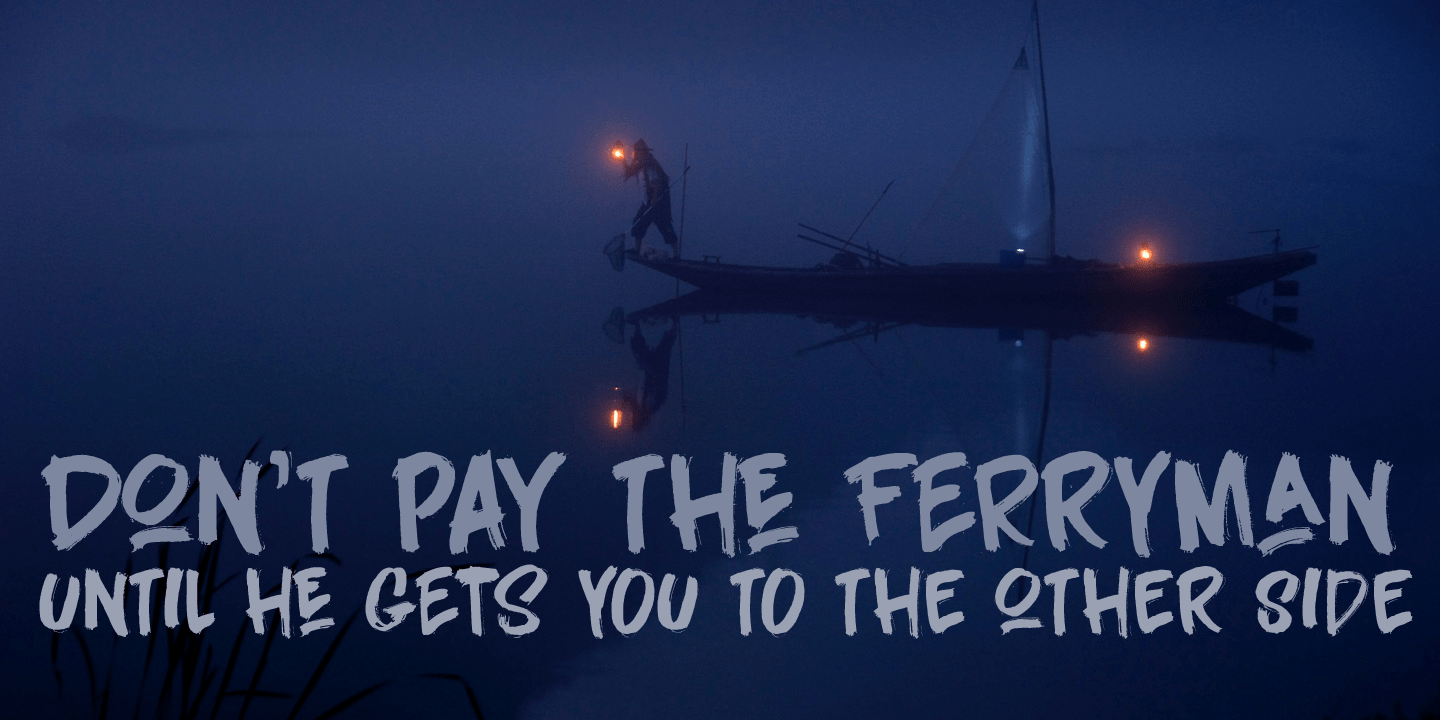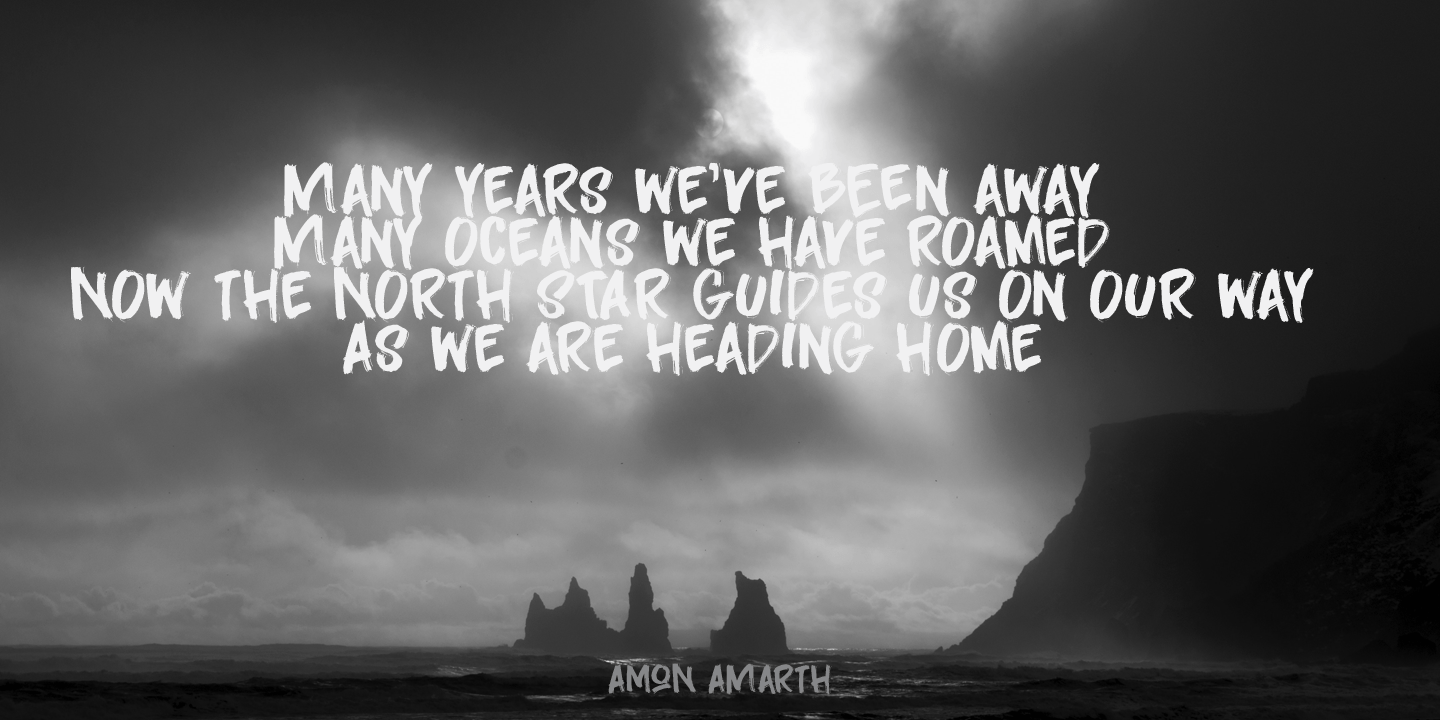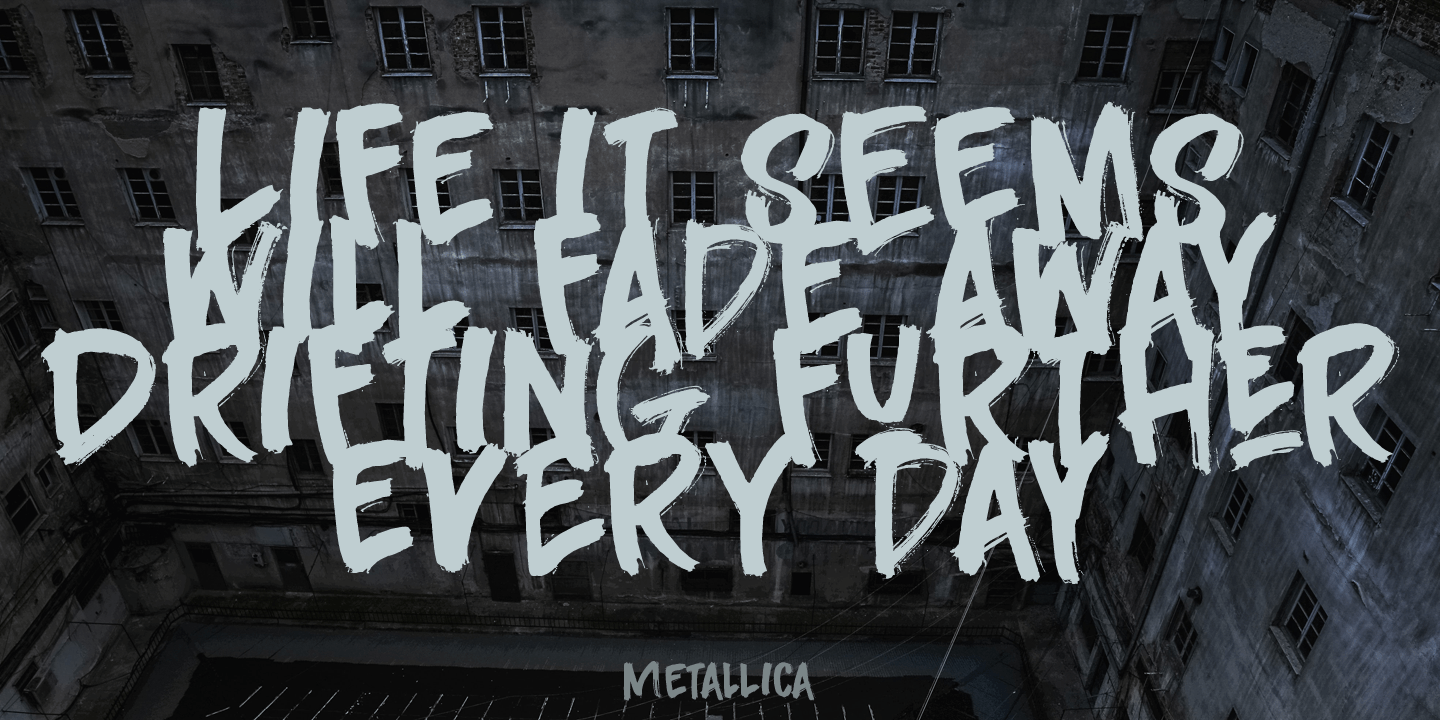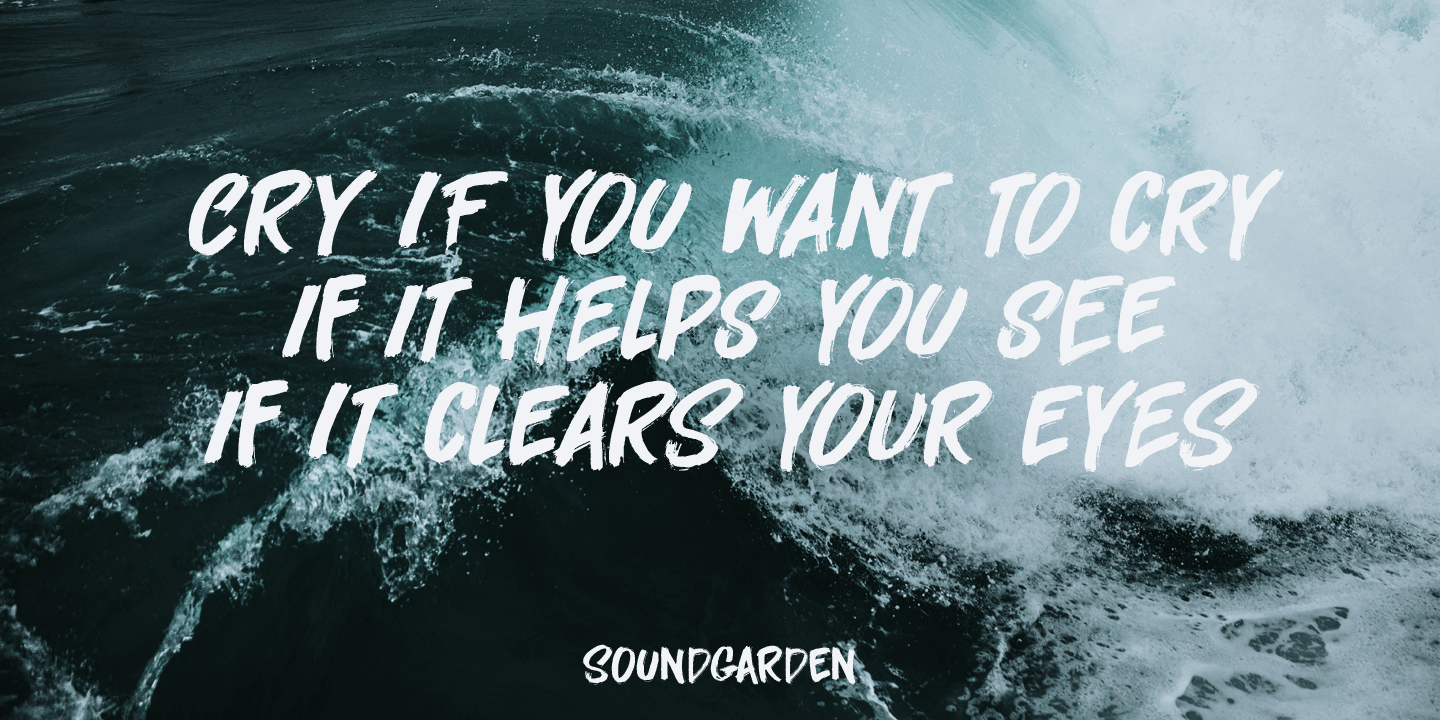
About Darkness Rising
I was in a bit of a gloomy mood just before I created this font. I had no inspiration whatsoever (which always affects me in a bad way). I was trying to create a font using broken satay skewers, as using those gives the letters a unique look. I broke…